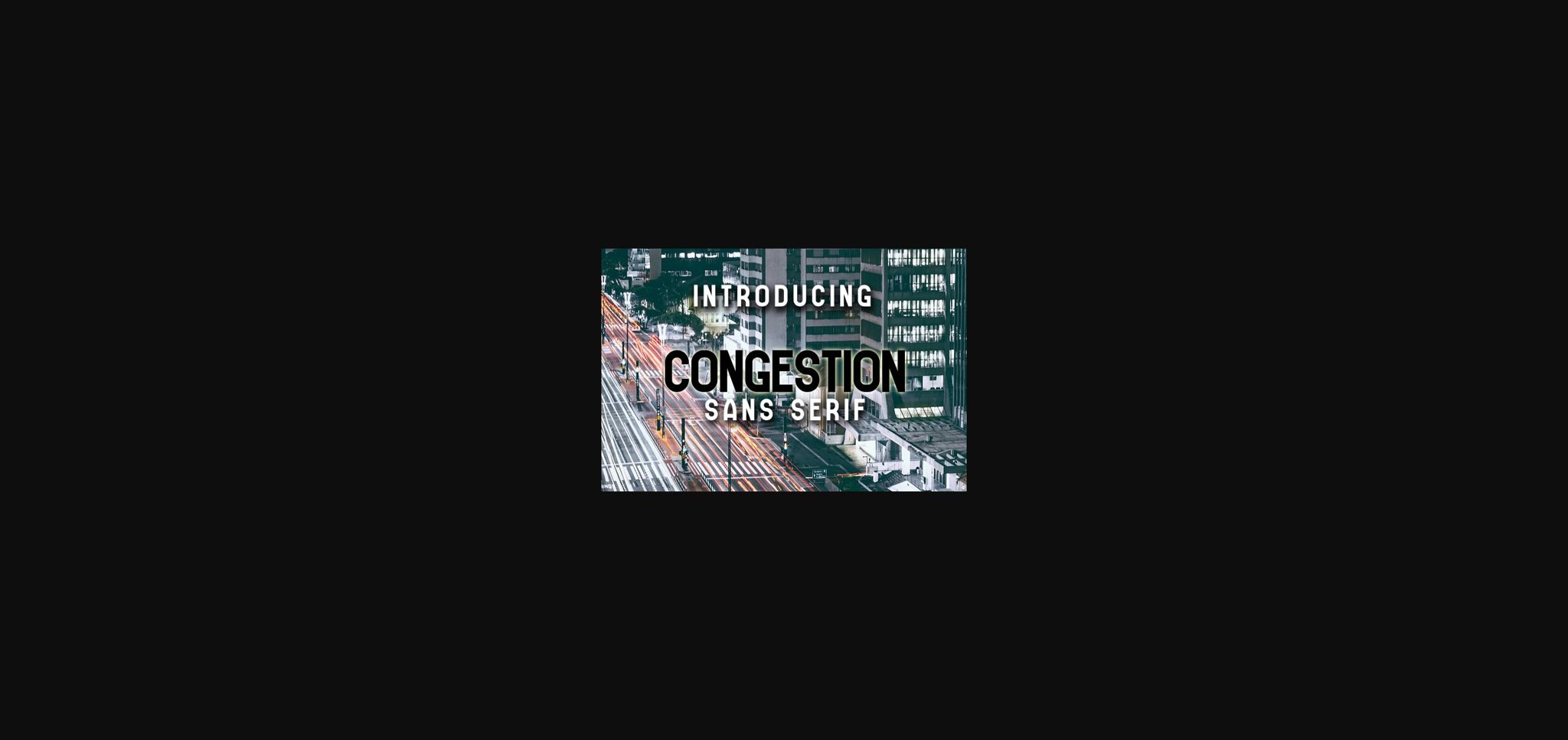
About Congestion Font
Congestion is an awesome sans-serif font that will look awesome on any of Your designs. Use this font on posters, flyers, and t-shirts. Add this font to your favorite creative ideas and see the results!